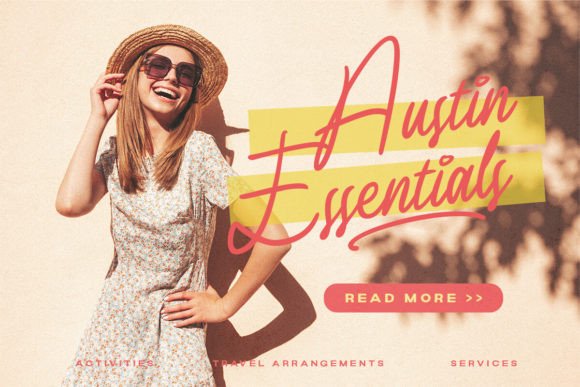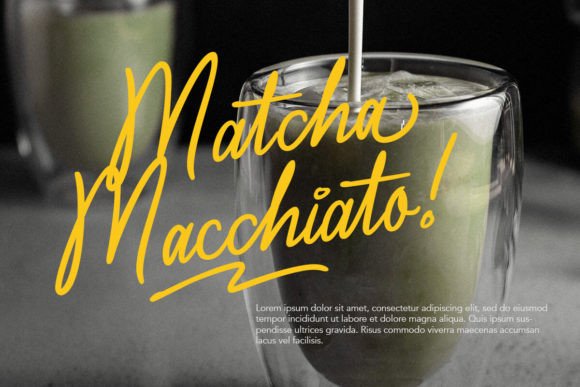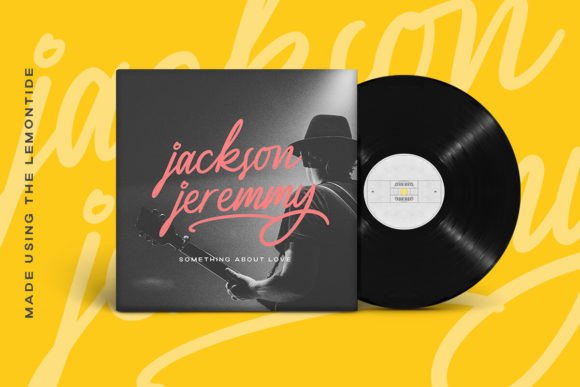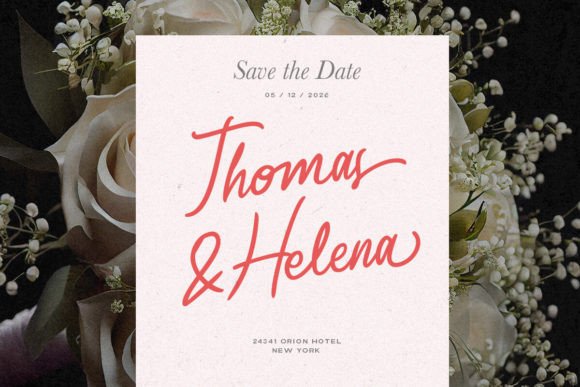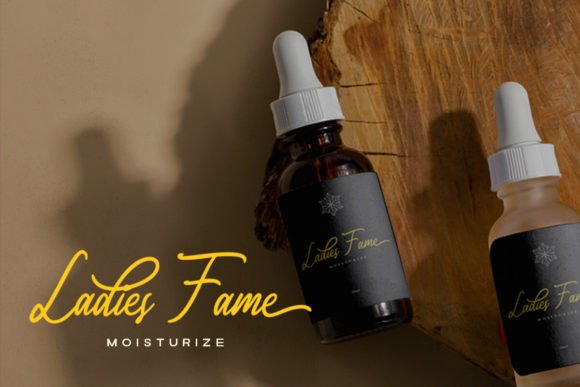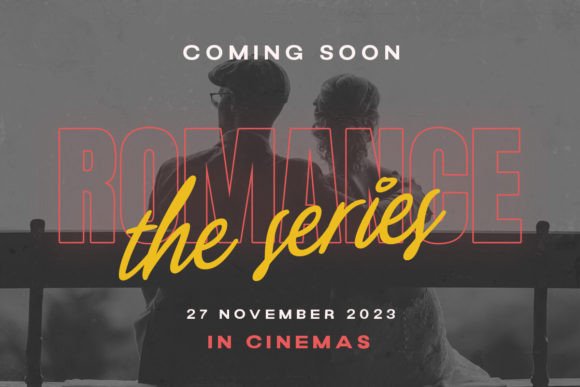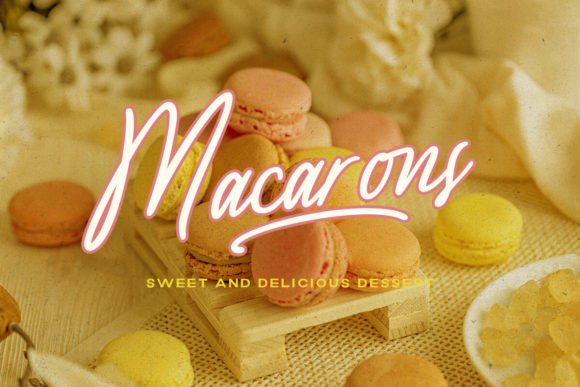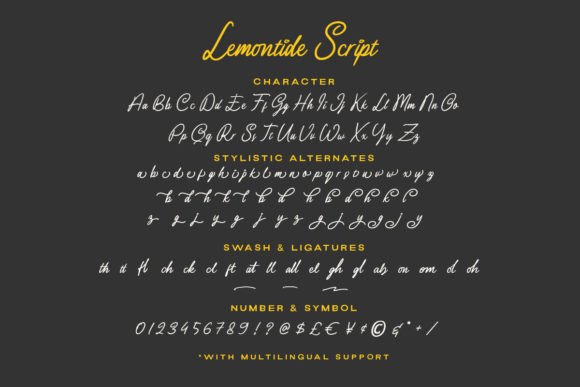
Lemontide Font
Introducing Lemontide, a casual script hand-written font that will add a touch of catchy to your designs. This font has charming vibes that make it perfect for projects that require a friendly and approachable feel. The letters are slightly wider than usual, giving it a modern yet comfortable appearance.